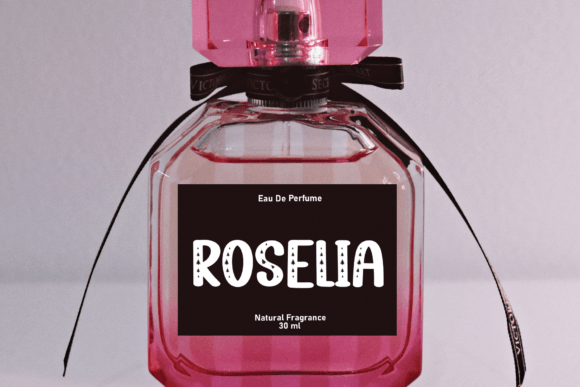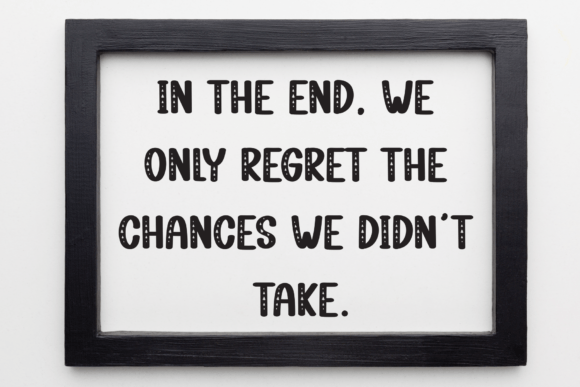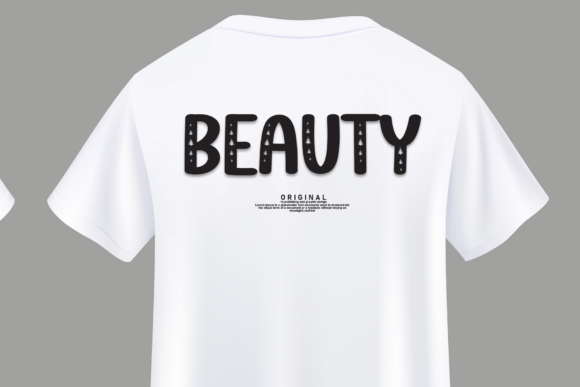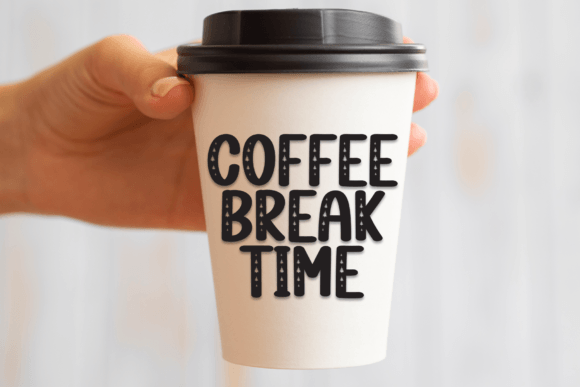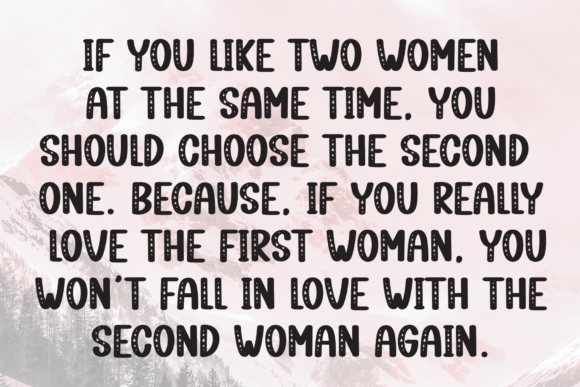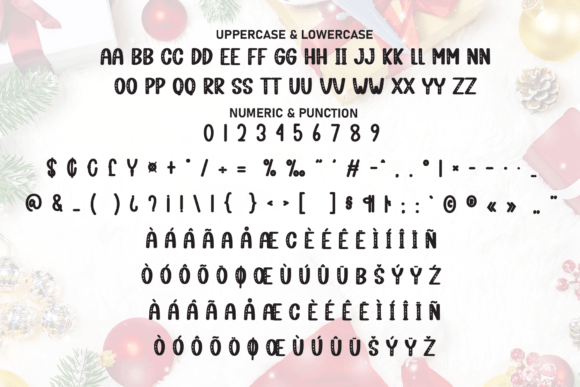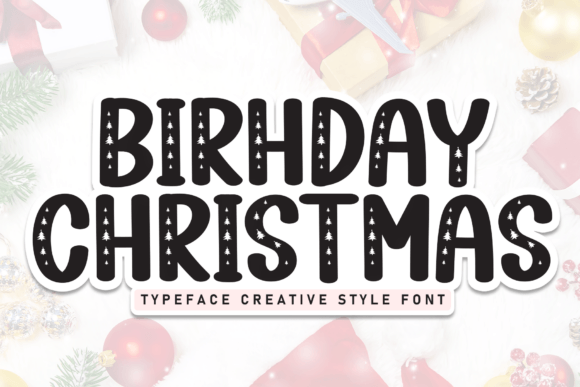
Deck the Letters with Cheer: Unwrapping the Birthday Christmas Font
Have you ever been brainstorming design ideas for the holiday season, only to find yourself scrolling through Pinterest boards and social media feeds for inspiration? It’s a feeling many creatives can relate to – the pressure to come up with something unique and festive, all while meeting the expectations of loved ones and clients. But what if you could inject a little extra magic into your designs, making them stand out from the crowd?
Enter the Birthday Christmas Font – a playful display font that’s sure to bring joy to your holiday projects. With its charming design, tiny Christmas trees nestled inside bold lines, this font adds a whimsical touch to any design. Whether you’re a seasoned designer or just starting out, the Birthday Christmas Font is a valuable addition to your toolkit, offering endless possibilities for creative expression.
Birthday Christmas Font Key Features
- Font Styles: The Birthday Christmas Font comes in 2 unique styles, “Bold” and “Regular”, allowing for versatility in design.
- Character Set: Includes a wide range of characters, including uppercase and lowercase letters, numbers, and special characters, making it suitable for various design applications.
- Unique Characteristics: The Birthday Christmas Font features a distinctive, festive design with a blend of holiday and birthday elements, making it ideal for Christmas and birthday-themed projects.
Birthday Christmas Font Review
Overall, I found the Birthday Christmas Font to be a fun and playful addition to any design project. ✨ The font’s whimsical and festive feel makes it perfect for holiday-themed designs, such as Christmas and New Year’s cards, or even birthday invitations with a holiday twist.
Here are some of the things I like about the font:
- ✨ Unique blend of Christmas and birthday elements, creating a one-of-a-kind look.
- ✨ Versatile and can be used in a variety of design contexts, from digital to print.
- ✨ Available in a range of font styles and weights, making it easy to customize to suit your design needs.
- ⚠️ Limited character set, which may make it difficult to use for longer blocks of text.
- ⚠️ May not be suitable for more formal or professional designs, due to its playful and festive nature.
- ⚠️ Requires careful kerning and spacing to ensure the font looks its best.
Overall, I think the Birthday Christmas Font is a great addition to any designer’s toolkit. With a little creativity and attention to detail, it can add a fun and festive touch to even the most mundane design projects.
Some common use cases for the Birthday Christmas Font include:
- Christmas party invitations and decorations.
- Birthday cards and gift tags.
- Seasonal social media graphics and ads.
Tips for getting the most out of the Birthday Christmas Font include:
- Pair it with festive colors and patterns for a cohesive look.
- Experiment with different font sizes and styles for visual interest.
- Use it to add a touch of whimsy and personality to your designs.
- Festive illustrations of snowflakes, holly, or other winter-themed elements
- Bold, bright colors like red, green, or gold
- Patterns like polka dots or stripes to add texture and visual interest
- Eye-catching graphics like animations, GIFs, or short videos
- Bright, festive colors like pink, blue, or yellow
Project 2: Holiday Social Media Post
Make a splash on social media by creating a festive holiday post using the Birthday Christmas Font. This project is perfect for businesses, bloggers, or influencers looking to spread holiday cheer.
Use the Birthday Christmas Font to add a playful touch to your holiday post. Write a fun message, quote, or fact using this font, and pair it with eye-catching graphics and visuals.
To create a visually appealing post, combine the Birthday Christmas Font with: